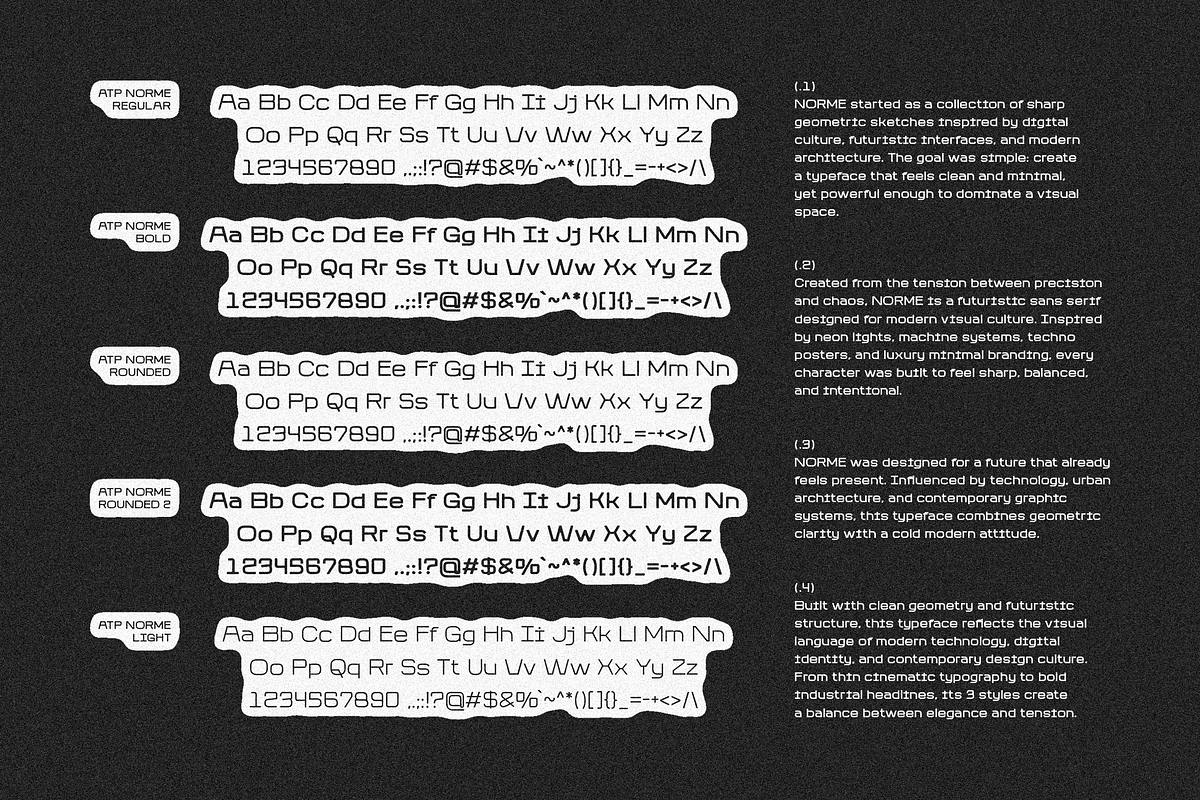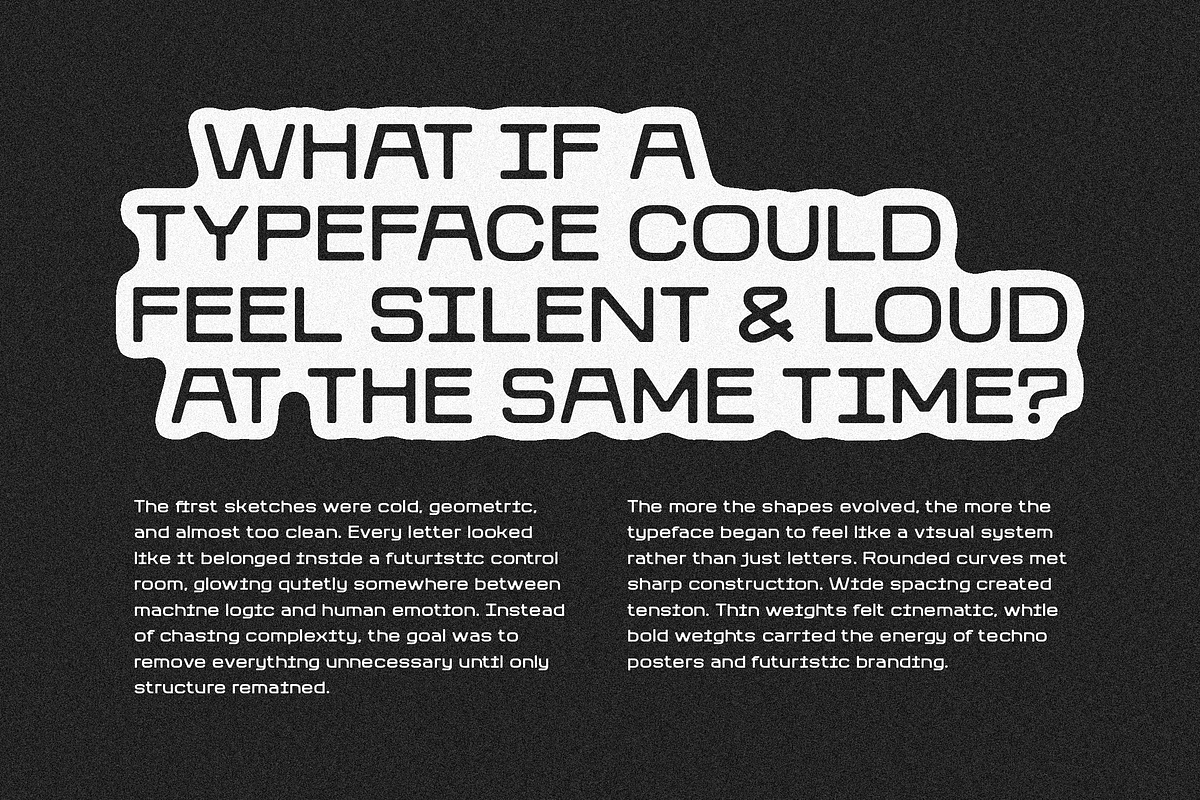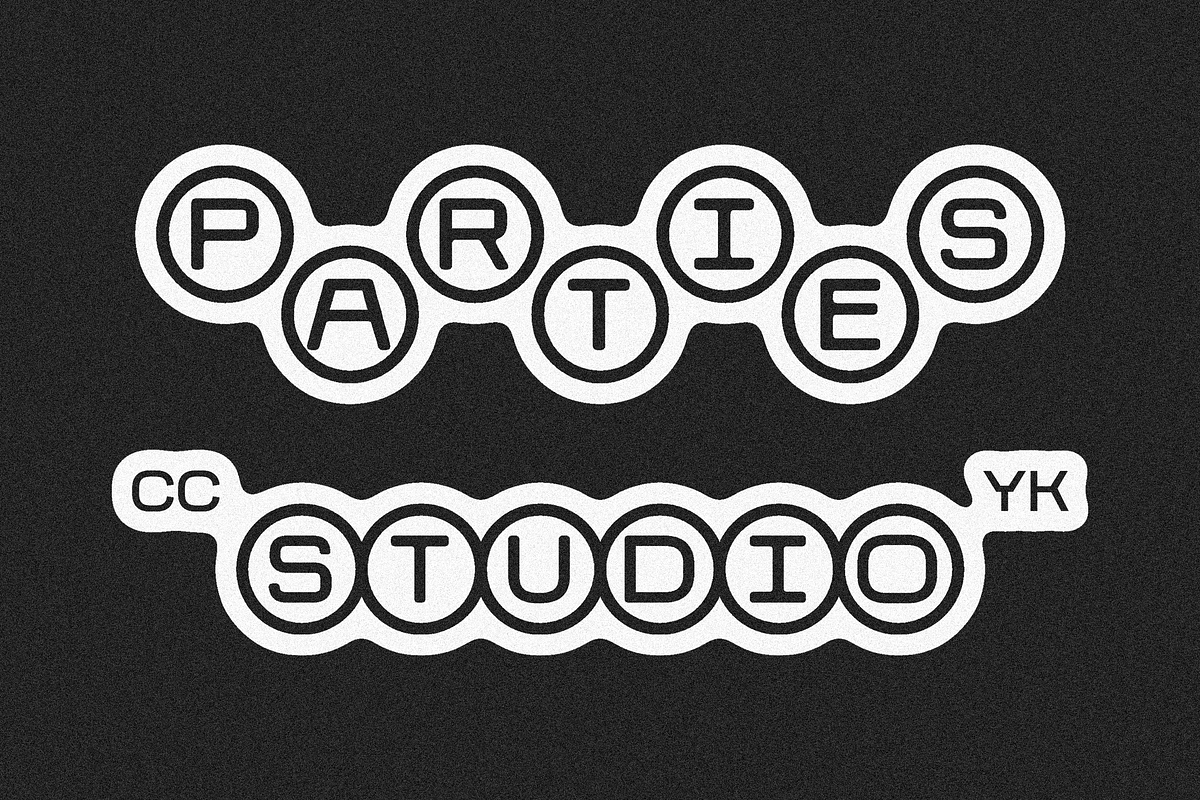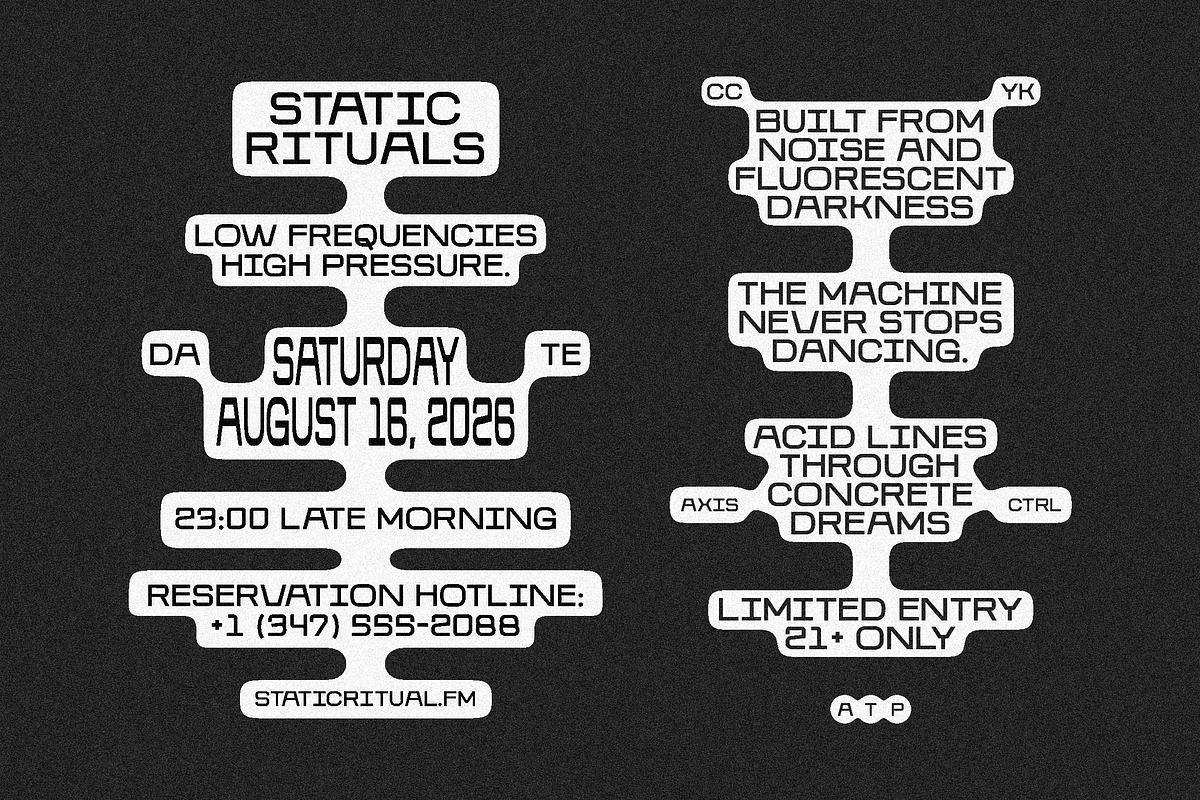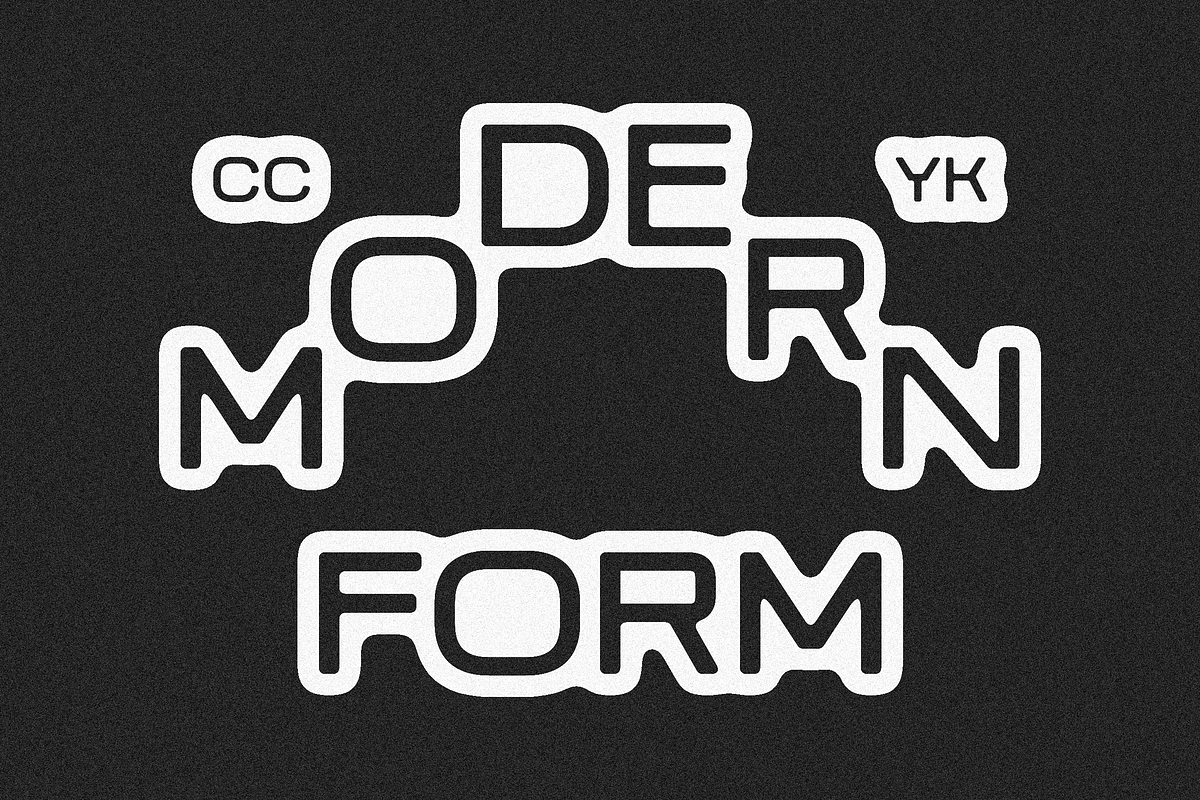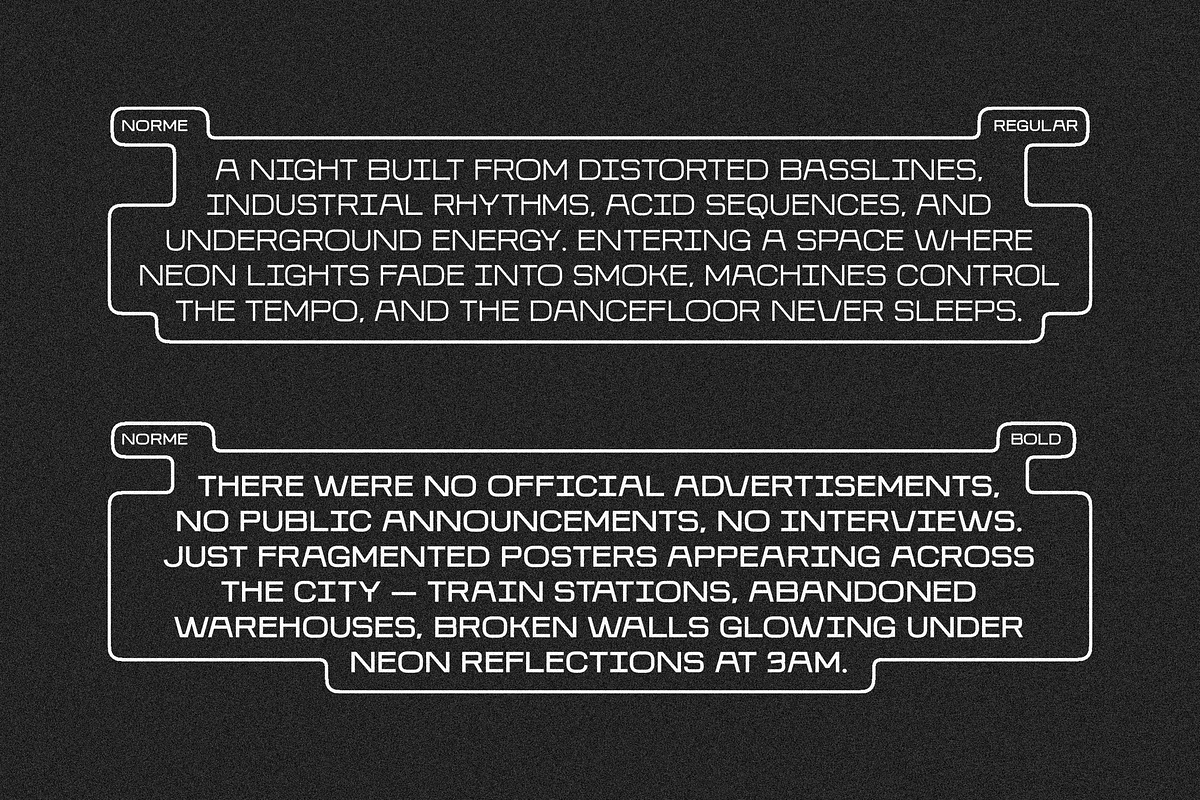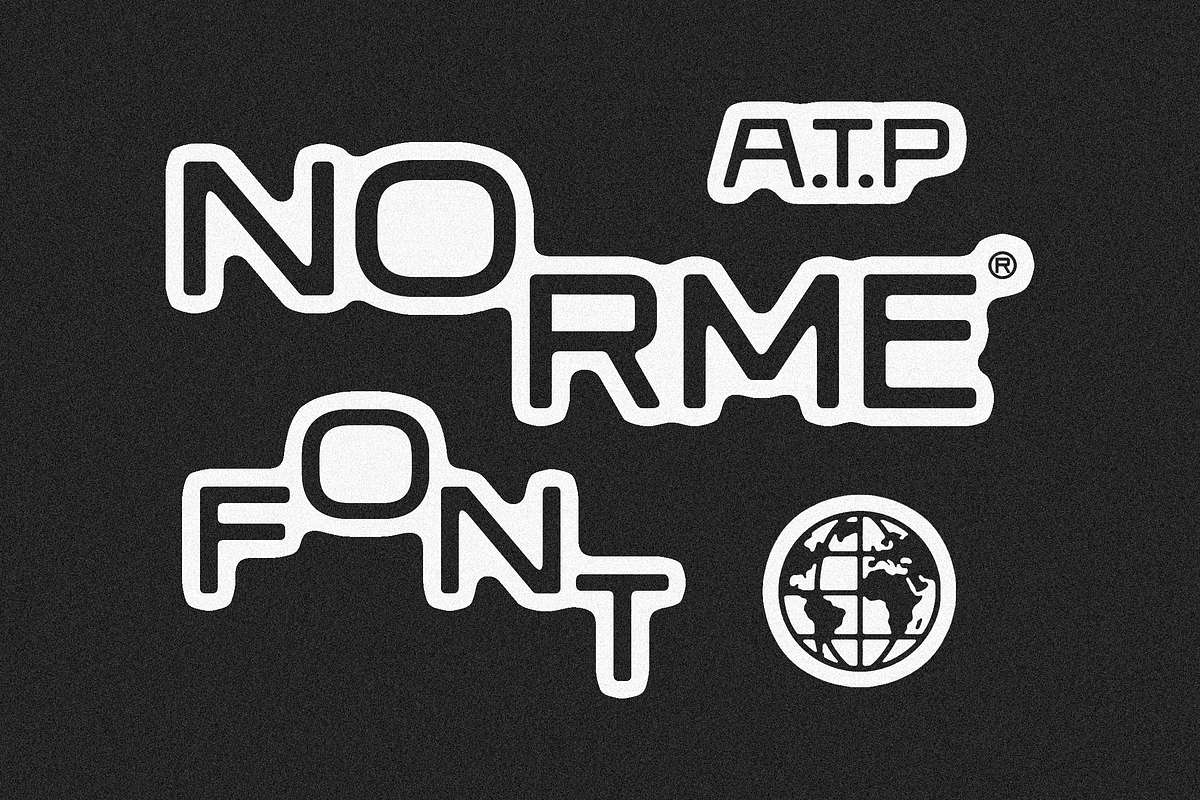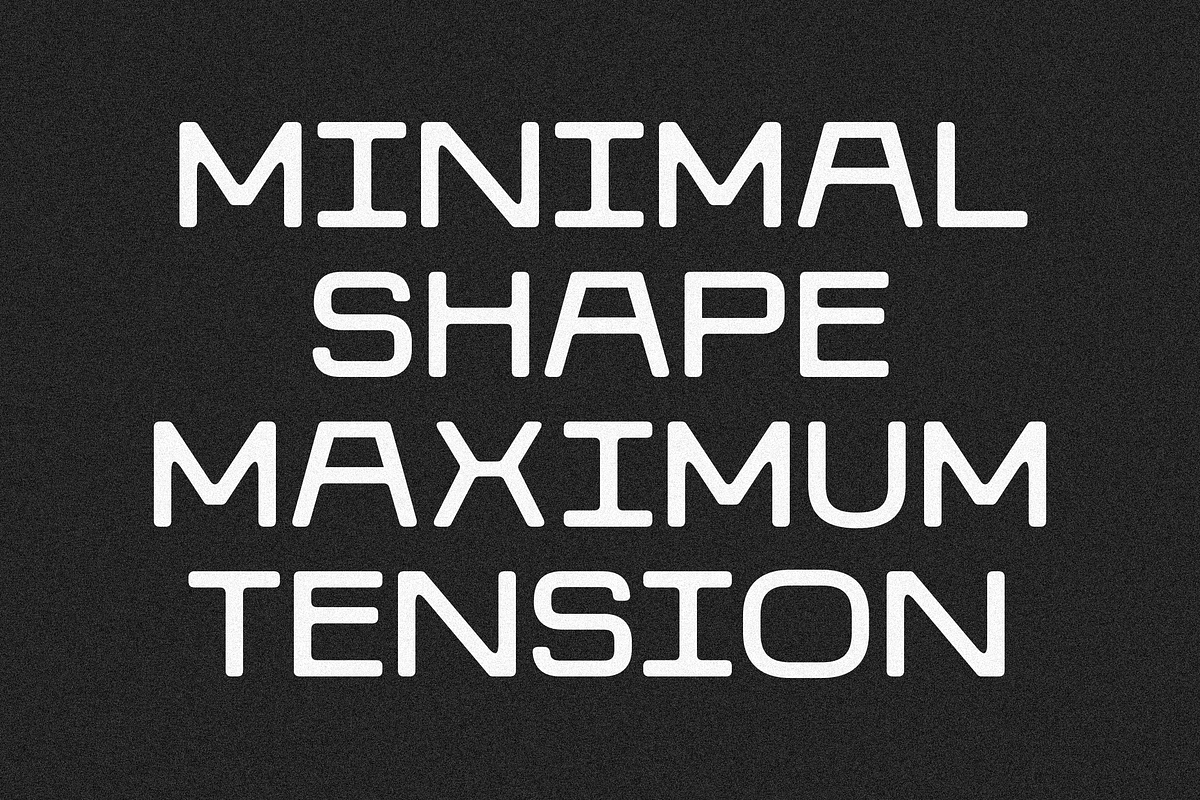
Norme - Geometric Display Font
NORME is a futuristic geometric sans serif designed with precision, clarity, and modern visual balance. Built from clean structures and rounded geometry, this typeface delivers a sleek contemporary aesthetic that feels equally at home in technology branding, architectural layouts, fashion campaigns, and electronic music visuals.
Its minimalist construction creates a strong visual presence while maintaining high readability across headlines, posters, logos, editorial layouts, and digital interfaces. From ultra-light compositions to bold statement typography, NORME adapts effortlessly to both luxury and experimental design directions.
Inspired by modern industrial systems, sci-fi visuals, and contemporary branding culture, NORME combines sharp structure with smooth curves to create a timeless futuristic identity.